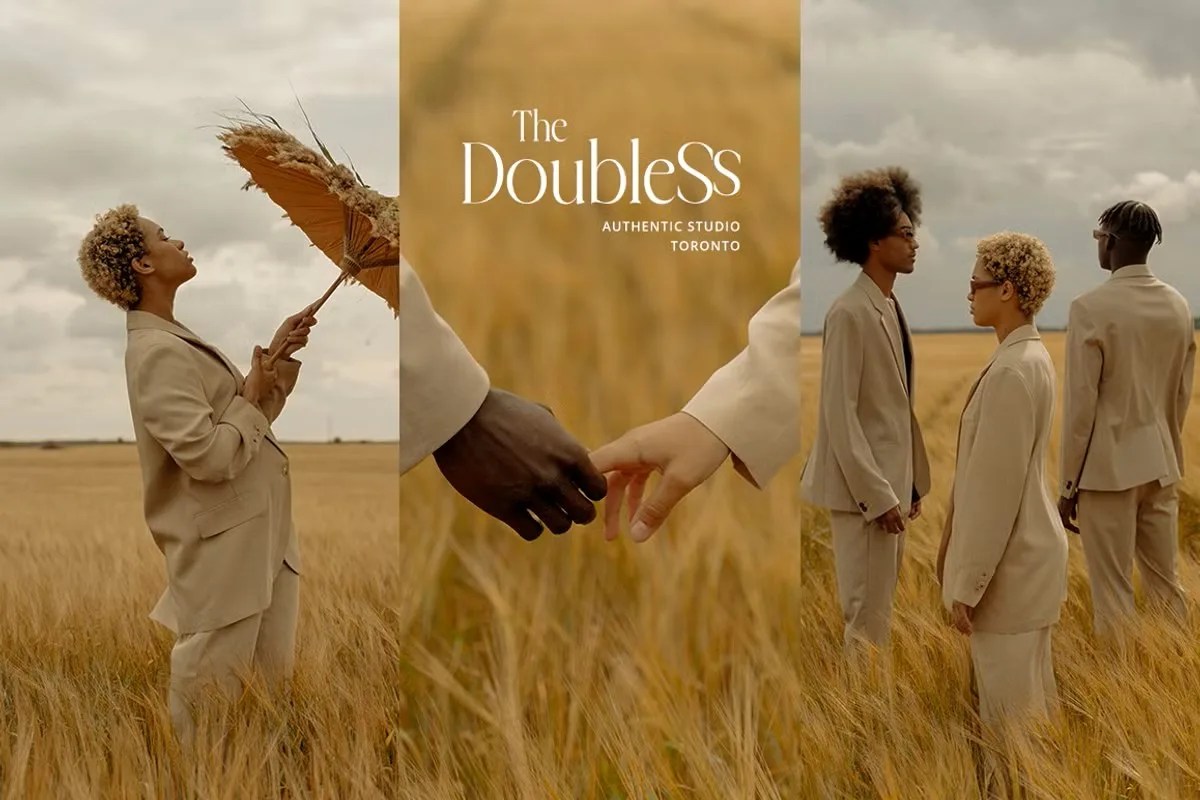
Charlotten by RockboyStd. This is a beautiful and classic serif font that brings a sense of sophistication and history to any project. The font’s graceful letterforms are both highly readable and aesthetically pleasing. Charlotten is perfect for designers who appreciate the enduring power of traditional typography and refined detail. It provides a look that is both authoritative and approachable.
This font is a true workhorse for a variety of professional applications. Specifically, its high readability makes it a perfect choice for all kinds of editorial design. Designers can confidently use it for the main body text of a book, newspaper, or magazine. Furthermore, this classic serif font lends an air of authority and elegance to branding projects. It is a great choice for law firms, universities, or luxury brands that want to convey a sense of heritage, trust, and timeless quality.
• Elegant and classic serif style
• Features highly readable letterforms
• Ideal for editorial, branding, and formal text
• Provides a timeless and sophisticated look
Charlotten